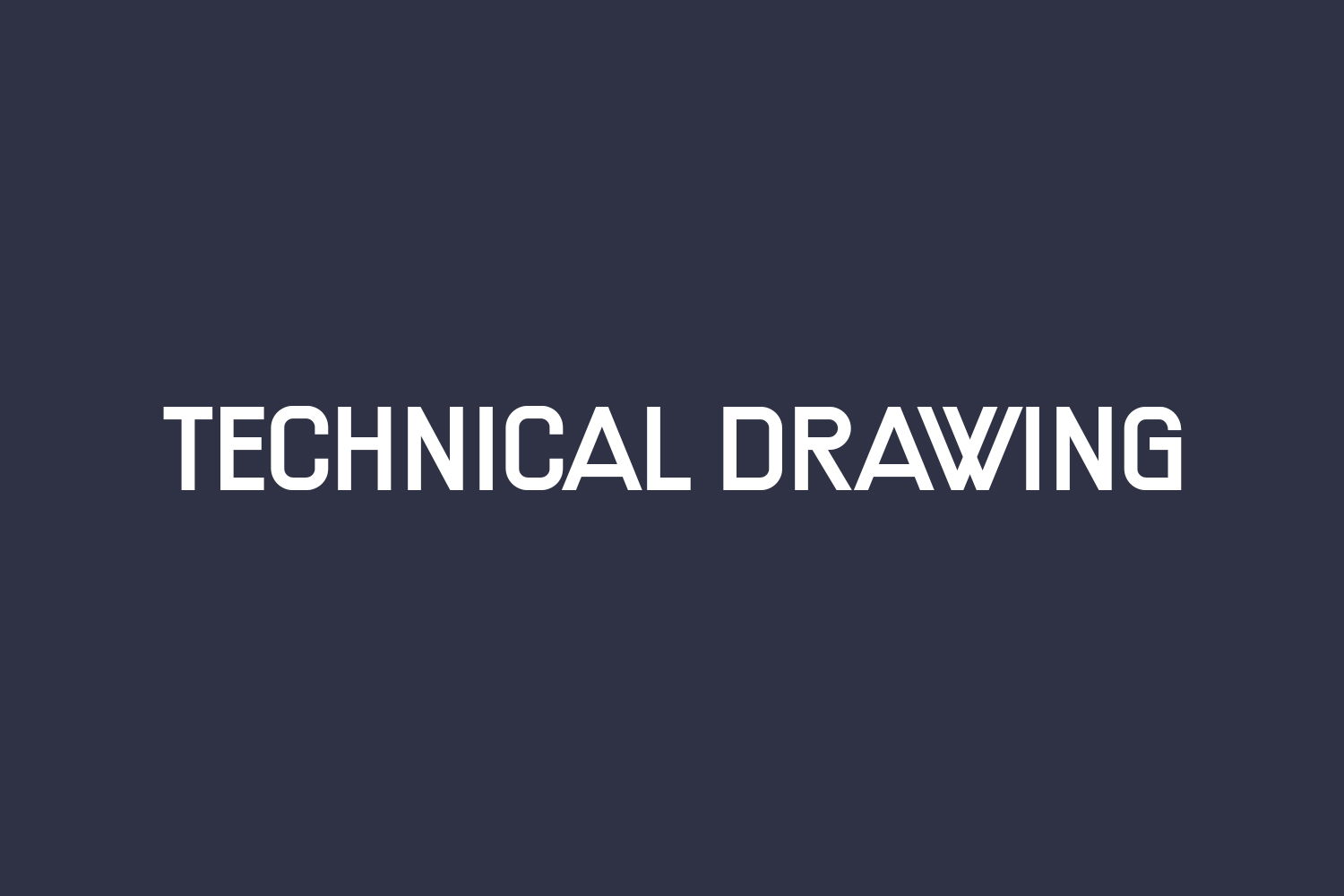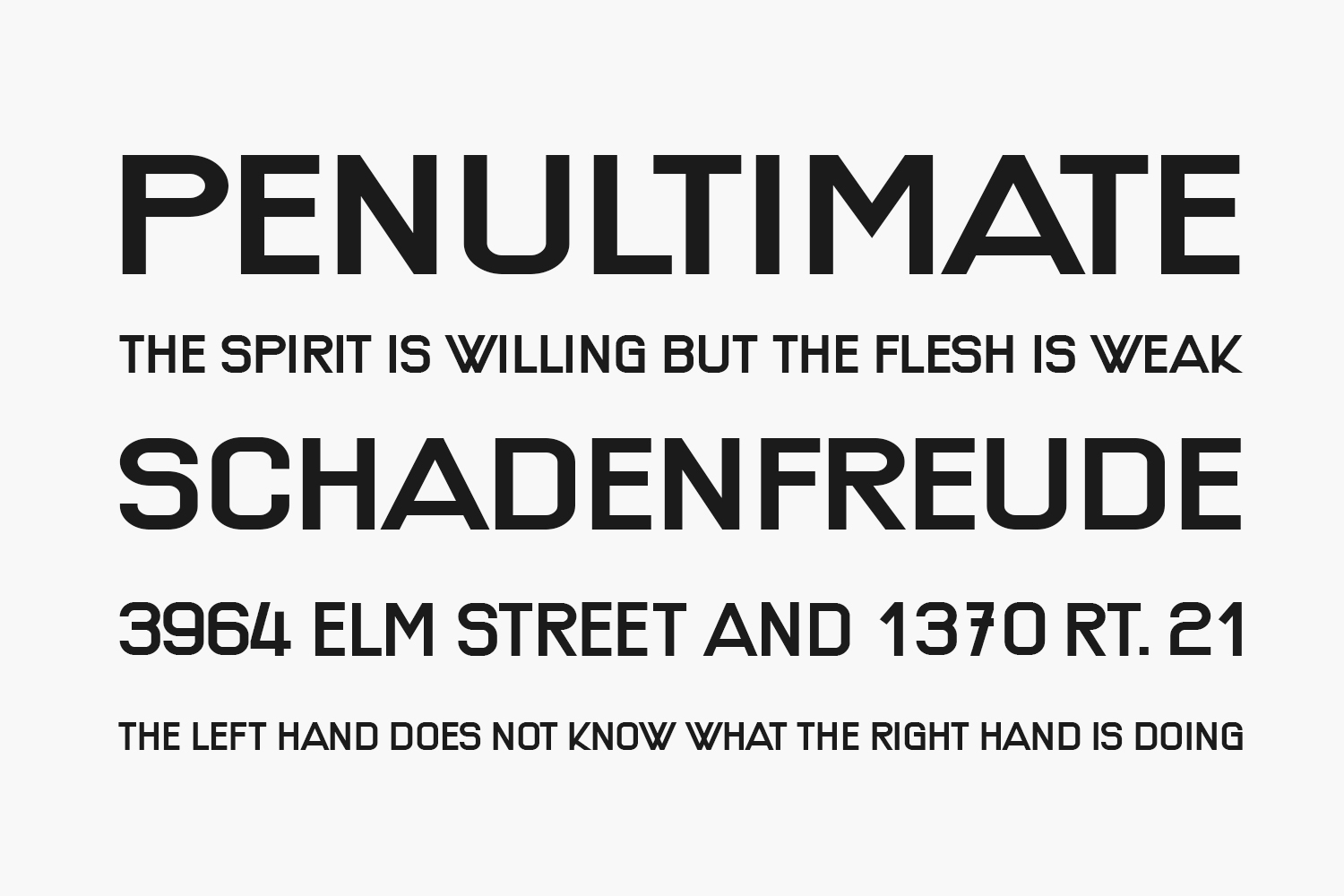
Technical Drawing Free Font Family boasts a superb sans serif style, exuding a crisp and modern aesthetic. Whether it’s a poster, flyer, or t-shirt, this font adds a touch of sophistication. Incorporate it into your projects with confidence and prepare to be amazed by the striking results it delivers. Download the font for free if you need it for personal use or purchase the full version for commercial use.
Designed by Vladimir Nikolic